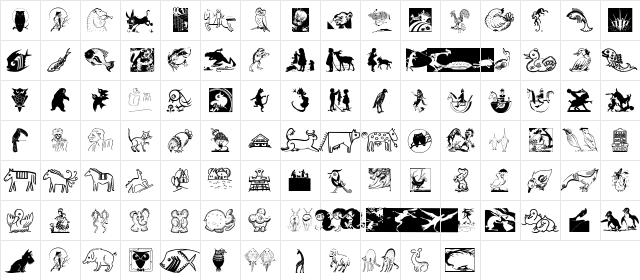
ChildrensDarlings Regular
Design Context for ChildrensDarlings Typeface
ChildrensDarlings has an approachable, lighthearted character — its loose, expressive forms are well-suited to children's content, casual branding, and fun-first design.
Font Pairing: Pairs well with a rounded or humanist sans for body copy, maintaining the friendly tone without relying on ChildrensDarlings to carry extended reading.
Pro Tip: Use ChildrensDarlings at larger display sizes where its expressive character can land. Pair with a clean, simple sans for body copy to maintain readability.